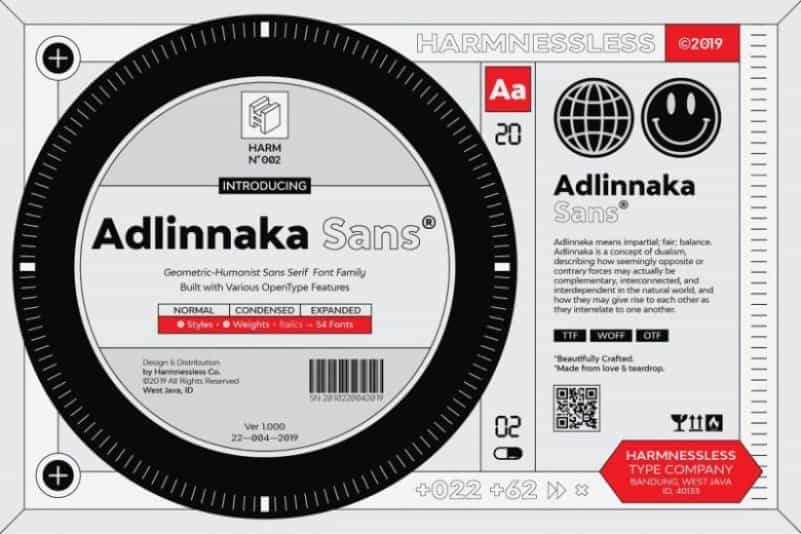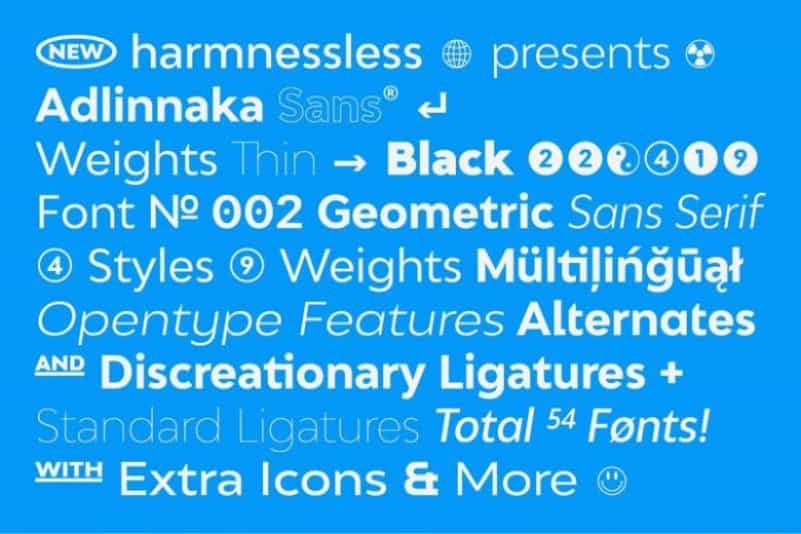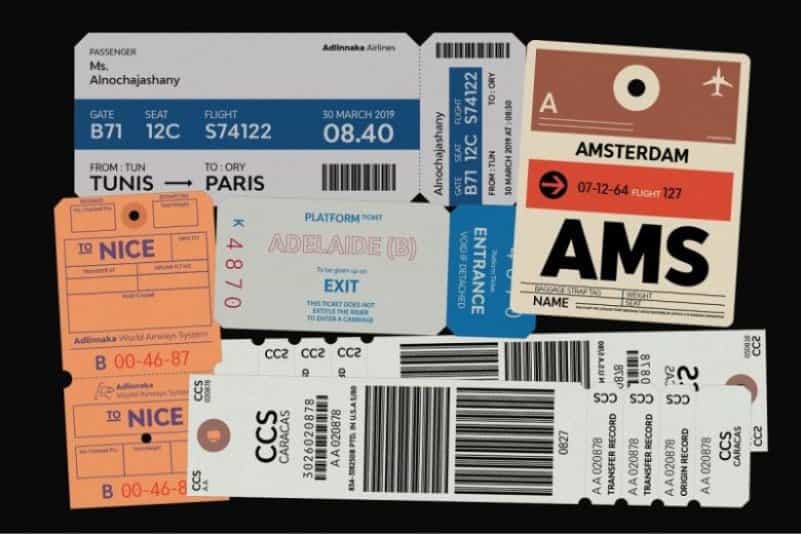
Adlinnaka – is a modern sans serif font that has 9 weights and italics (that’s 52 fonts in total). The solid look of the font is beneficial in making catchy titles and headlines that catch people’s eye. It is created and spread by harmlessness.